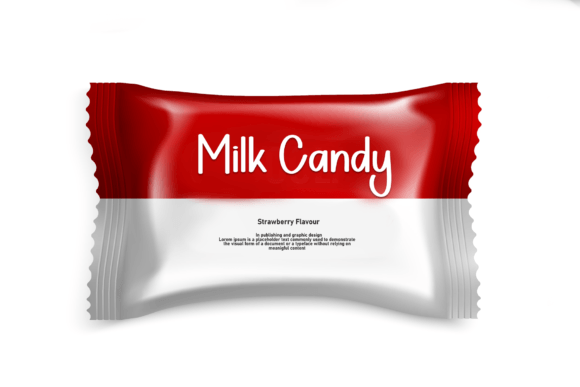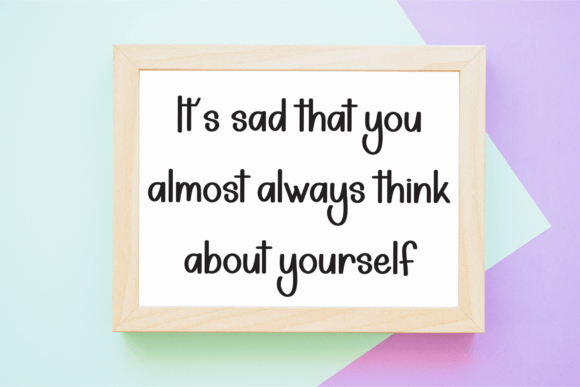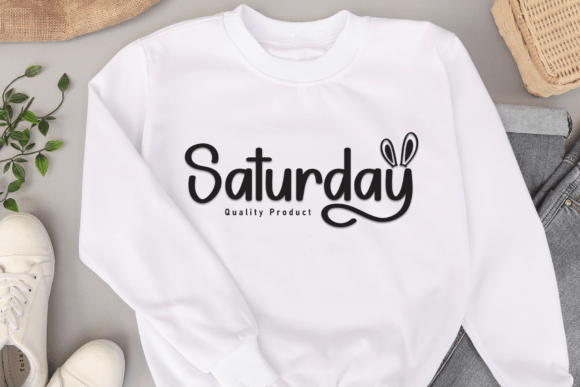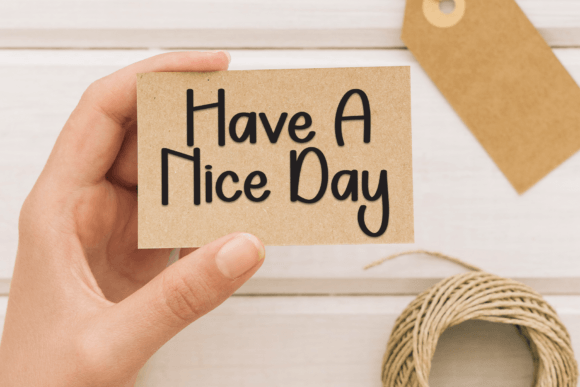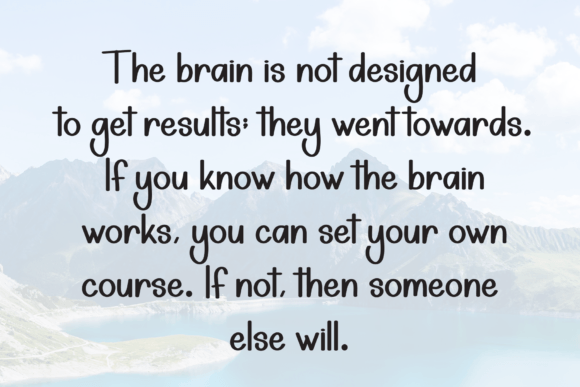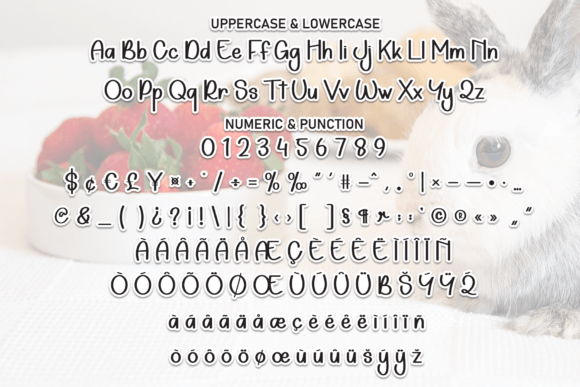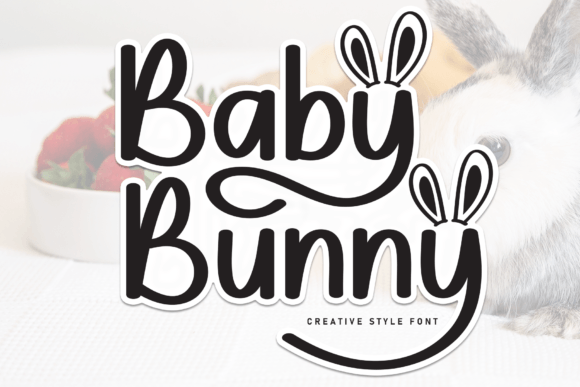
Baby Bunny Font: Elevate Your Designs with Elegance and Personality
In the world of typography, few fonts manage to strike a balance between modern charm and timeless elegance. Baby Bunny Font is one such exceptional typeface that brings a touch of sophistication and warmth to any design project. This modern, charming handwritten font is perfect for designers and crafters looking to add a refined allure to their upscale invitations, personal branding, and chic editorial designs.
The Essence of Baby Bunny Font
Baby Bunny Font is characterized by its graceful, flowing strokes that exude a sense of elegance and personality. Each character is meticulously crafted to convey a sense of sophistication, making it an ideal choice for projects that demand a high level of refinement. The font’s modern and charming aesthetic ensures that it stands out in a crowded design landscape, offering a unique voice to your creative endeavors.
Perfect for Upscale Invitations
When it comes to creating invitations for special occasions such as weddings, baby showers, or formal events, the choice of font can make all the difference. Baby Bunny Font, with its elegant and flowing script, adds a touch of luxury and sophistication to any invitation. Its readability and aesthetic appeal ensure that your invitations not only convey the importance of the event but also set the tone for a memorable experience.
Enhance Your Personal Branding
In the realm of personal branding, consistency and distinctiveness are key. Baby Bunny Font offers a unique and stylish solution for individuals looking to establish a strong brand identity. Whether you’re a blogger, influencer, or entrepreneur, this font can help you create a cohesive visual brand that communicates your personality and values. From logo design to website headers, Baby Bunny Font can elevate your brand’s visual appeal and make it more memorable.
Chic Editorial Designs
For editorial designers, finding a font that complements the content while adding an extra layer of visual interest is a constant quest. Baby Bunny Font, with its chic and modern appeal, is perfect for magazine articles, blog posts, and any other editorial content that aims to engage and captivate the reader. Its elegant strokes and sophisticated character ensure that your designs stand out, making your content more enjoyable to read and visually appealing.
Why Choose Baby Bunny Font?
- Elegance and Personality: Offers a perfect blend of modern charm and timeless elegance.
- Versatility: Suitable for a wide range of design projects, from invitations to editorial designs.
- Sophistication: Adds a refined allure and warmth to your projects.
- Easy to Read: Despite its elegant and flowing strokes, the font maintains high readability.
Baby Bunny Font is more than just a typeface; it’s a design element that can transform your projects with its elegance and personality. Whether you’re a designer looking to elevate your portfolio or a crafter aiming to create beautiful, sophisticated designs, Baby Bunny Font is an excellent choice. Its versatility, sophistication, and modern charm make it a valuable addition to any designer’s toolkit. So, why wait? Discover the refined allure and warmth that Baby Bunny Font can bring to your designs today.